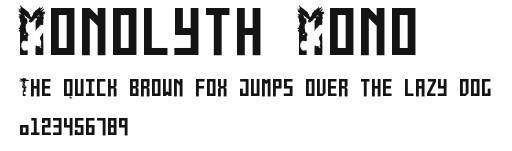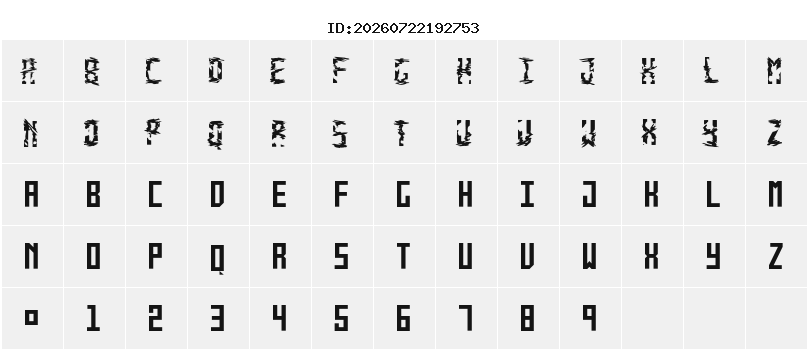
• Font Name: Monolyth Mono
• Manufacturer: PYRS Fontlab Ltd. / Made with FontLab
• Description: monolyth Monospaced is a font by PYRS Fontlab Ltd. / Made with FontLab, designed in 2014.
About Monolyth Mono.otf
Monolyth Mono.otf is a modern, elegant sans-serif font designed for ultimate readability and visual harmony. Perfect for branding, headlines, web design, and print materials.